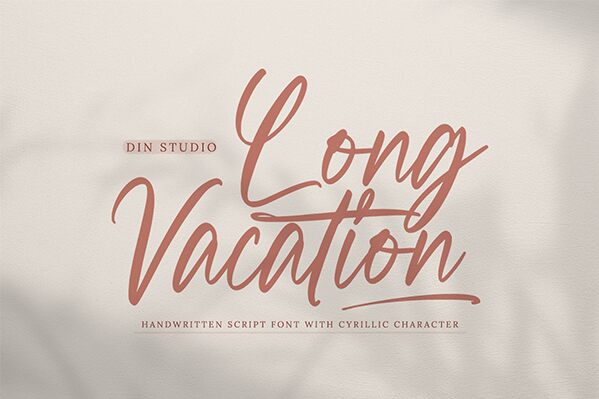
Long Vacation font by Din Studio is a visually captivating handwritten font that embodies a unique handwriting style. Its flowing interconnected letters and natural, lovely nuances make your designs stand out. With detailed high-contrast curves, it offers great legibility in both big and small text sizes.
This free handwritten font is perfect for invitations, greeting cards, logos, product packaging, branding, headings, blogs, posters, quotes, stationery design projects like wedding programs or business cards and social media posts.